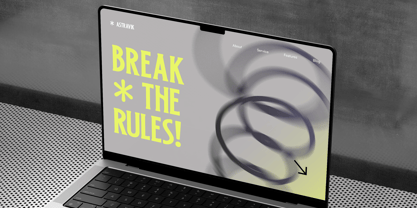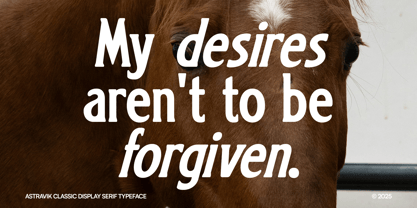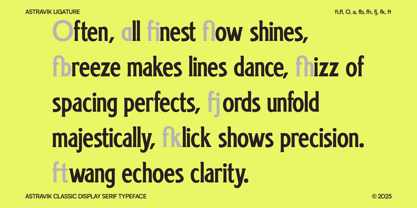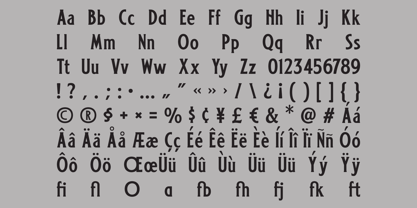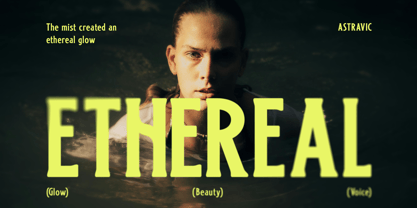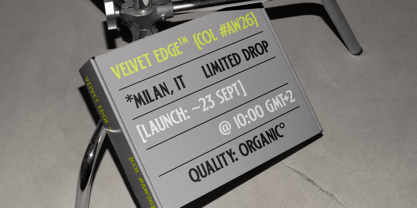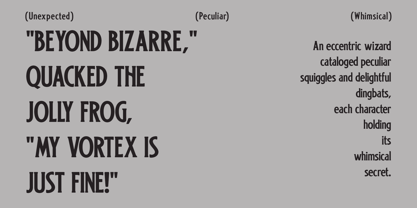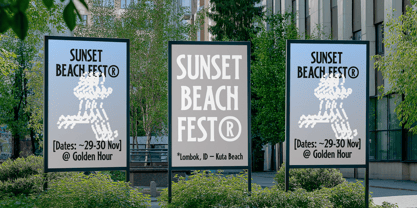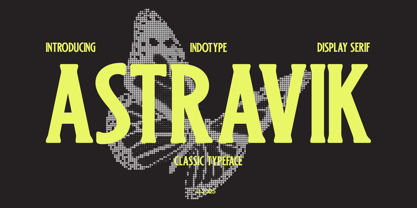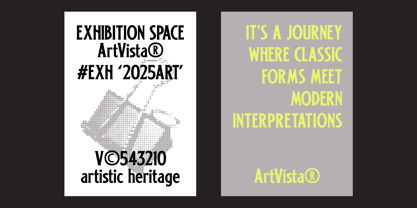
IT Astravik
by Indotype
The IT Astravik Font Family was designed by Dede Kurniawan and published by Indotype. IT Astravik contains 2 styles and family package options. More about this family
Astravik is a striking display serif typeface that blends classical inspiration with bold modern character. Its strong vertical stance, sharp serifs, and dramatic proportions give it a monumental presence, while subtle irregularities in the strokes lend a handcrafted and timeless feel. Astravik was designed for those who want their typography to leave a lasting impression — commanding, elegant, and versatile. Perfect for editorial headlines, poster designs, book covers, branding, and visual identities, Astravik thrives in applications where words need to be seen as both design and message. Its bold, high-contrast style makes it ideal for display use, delivering an atmosphere of sophistication and power without losing readability. Astravik captures the essence of classic serif traditions but reinvents them for contemporary design. The result is a typeface that feels at once historic and forward-looking, making it the perfect choice for creatives seeking to balance heritage with innovation.